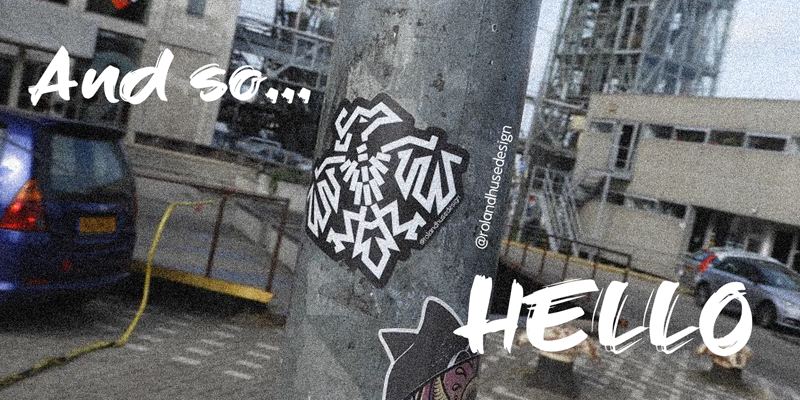
This is a demo version of �And So HELLO� a handwritten brush font notes to the user: Please note that the demo version does not contain any accents and special characters unless a few currency and punctuation. There is no kerning either. There is one ligature for double lowercase t. For full version and commercial license please shoot me a mail at contact@rolandhuse.com I hope you enjoy this one, Cheers, Roland Follow me on Instagram @rolandhusedesign visit my other fonts and subscribe for intro deals and bundle offers at store.rolandhuse.com |